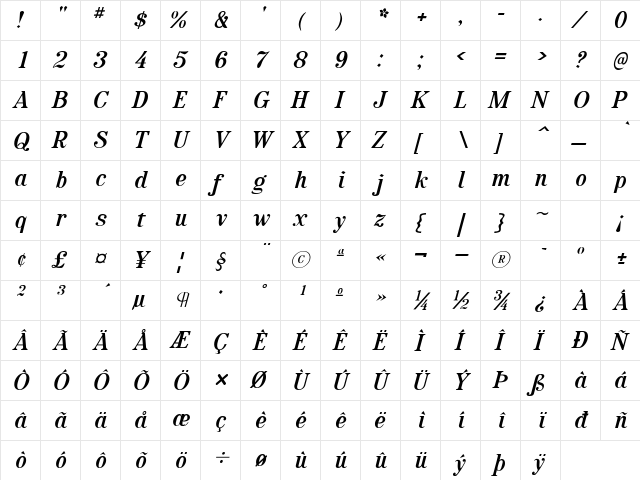
Rataczak BoldItalic Font Preview
Design Context for Rataczak Typeface
Rataczak takes a measured approach to typography — its balanced proportions and neutral character make it a reliable workhorse for both digital and print work. Its italic angle brings a sense of urgency and motion to the letterforms. Its bold stroke weight gives it real presence on the page.